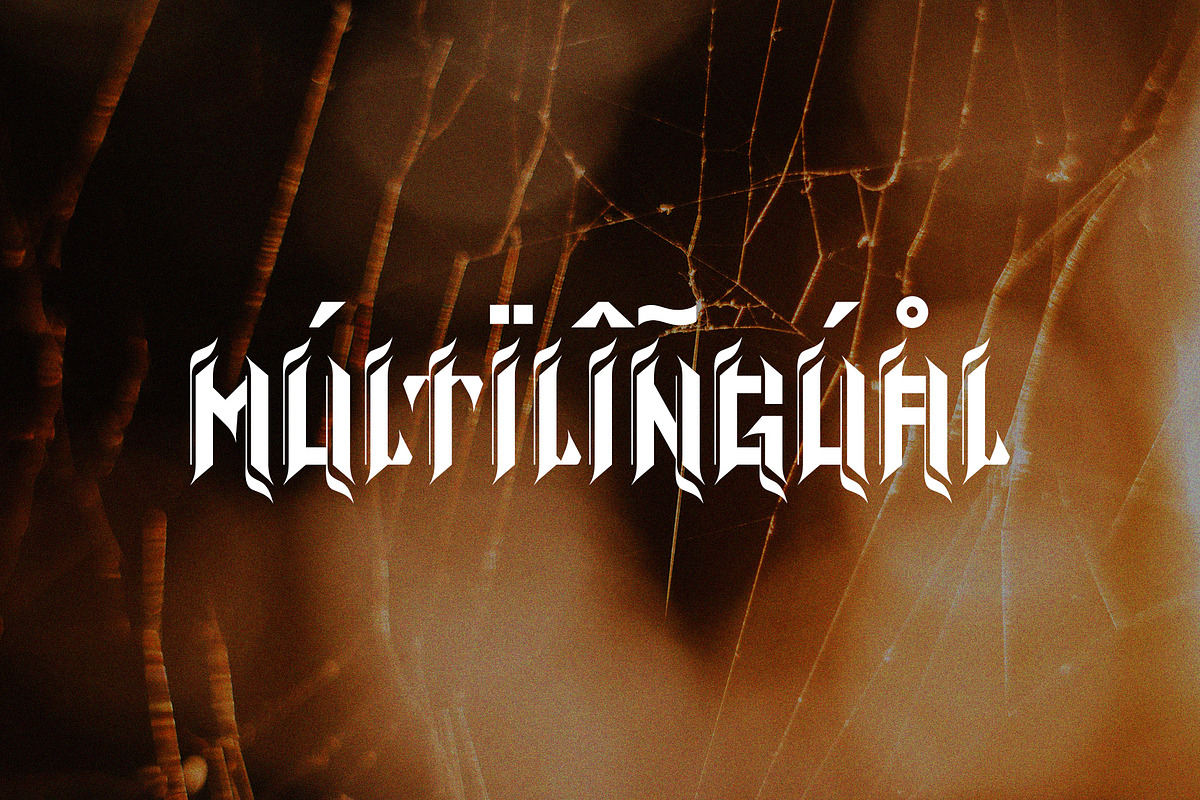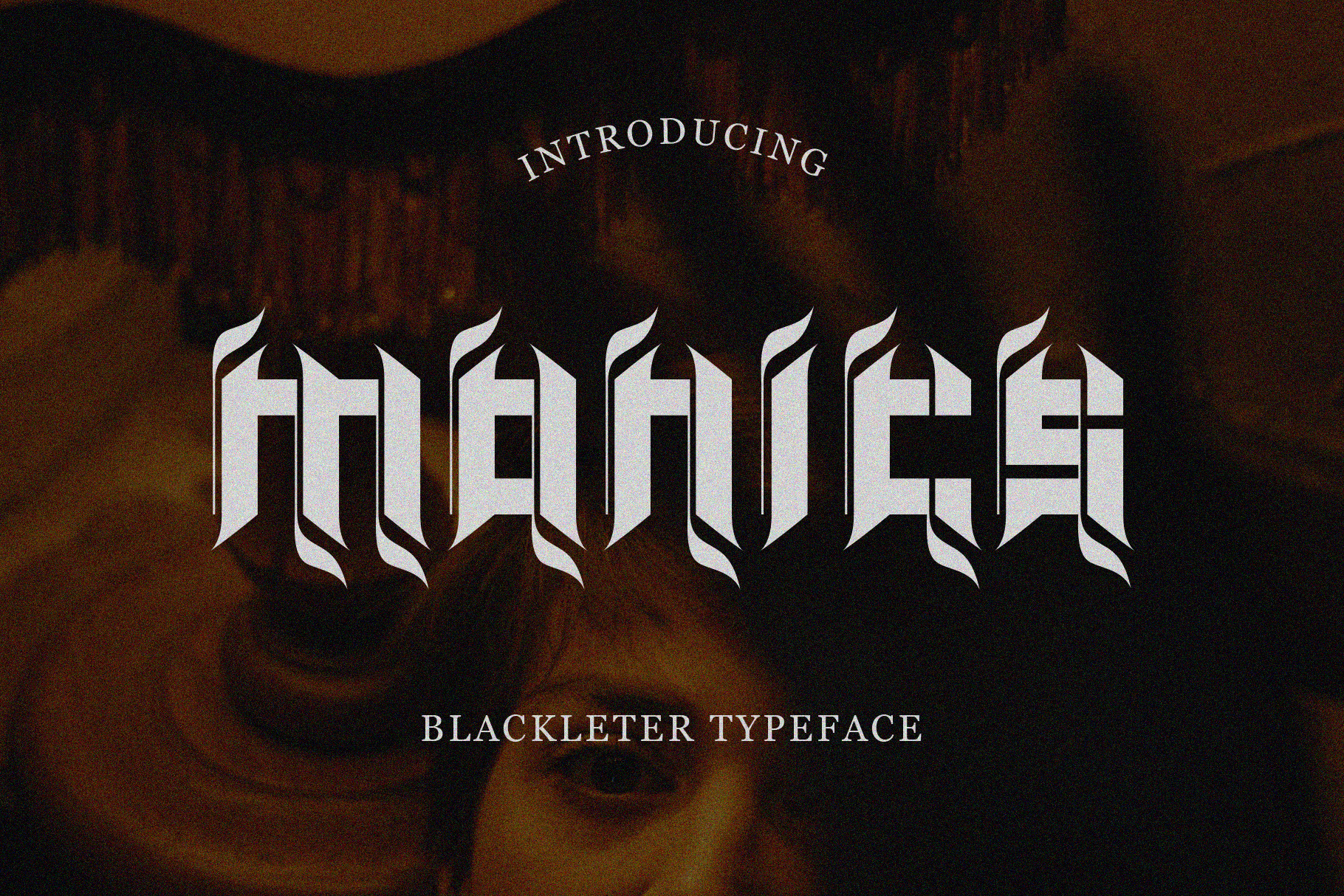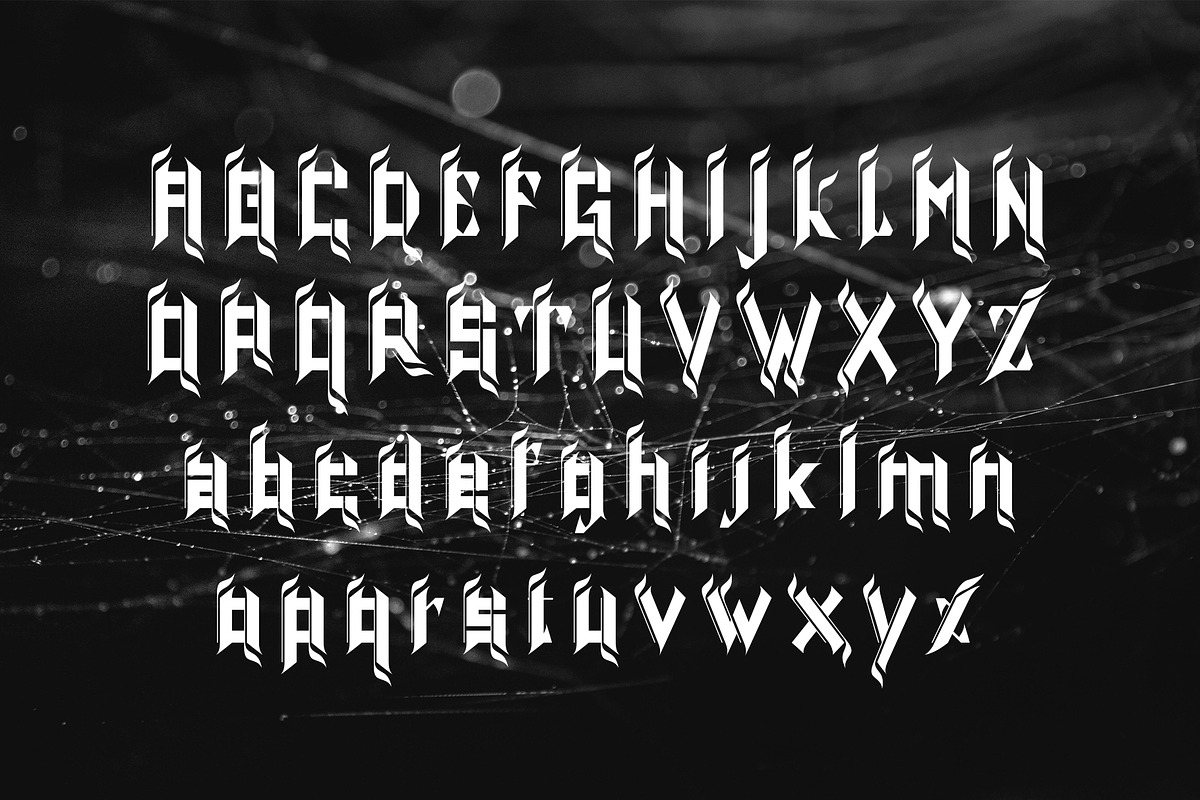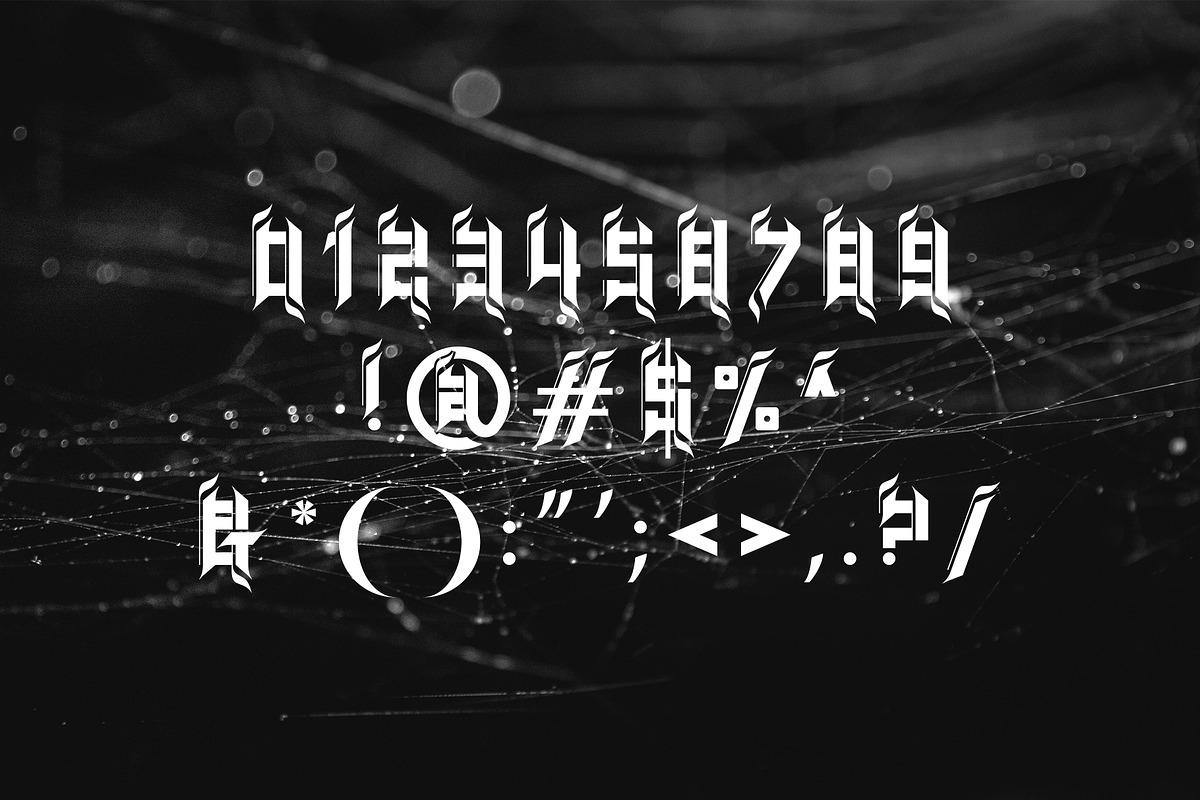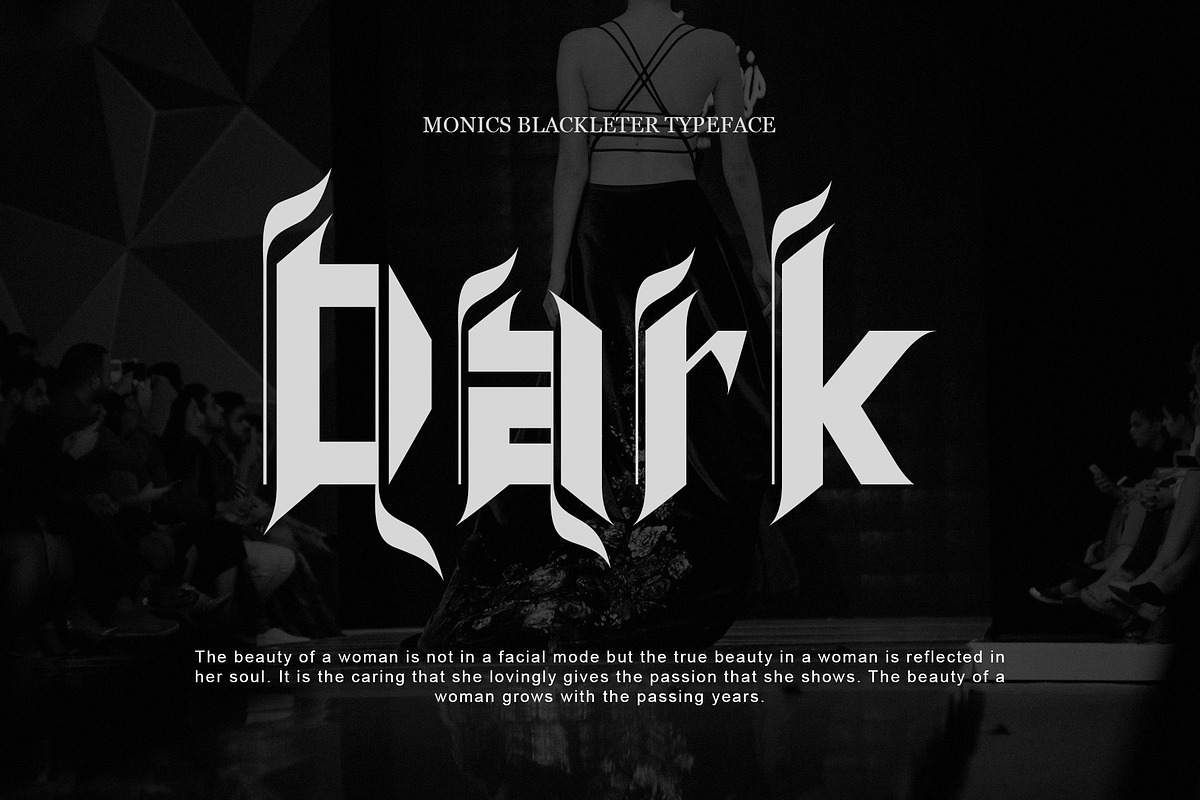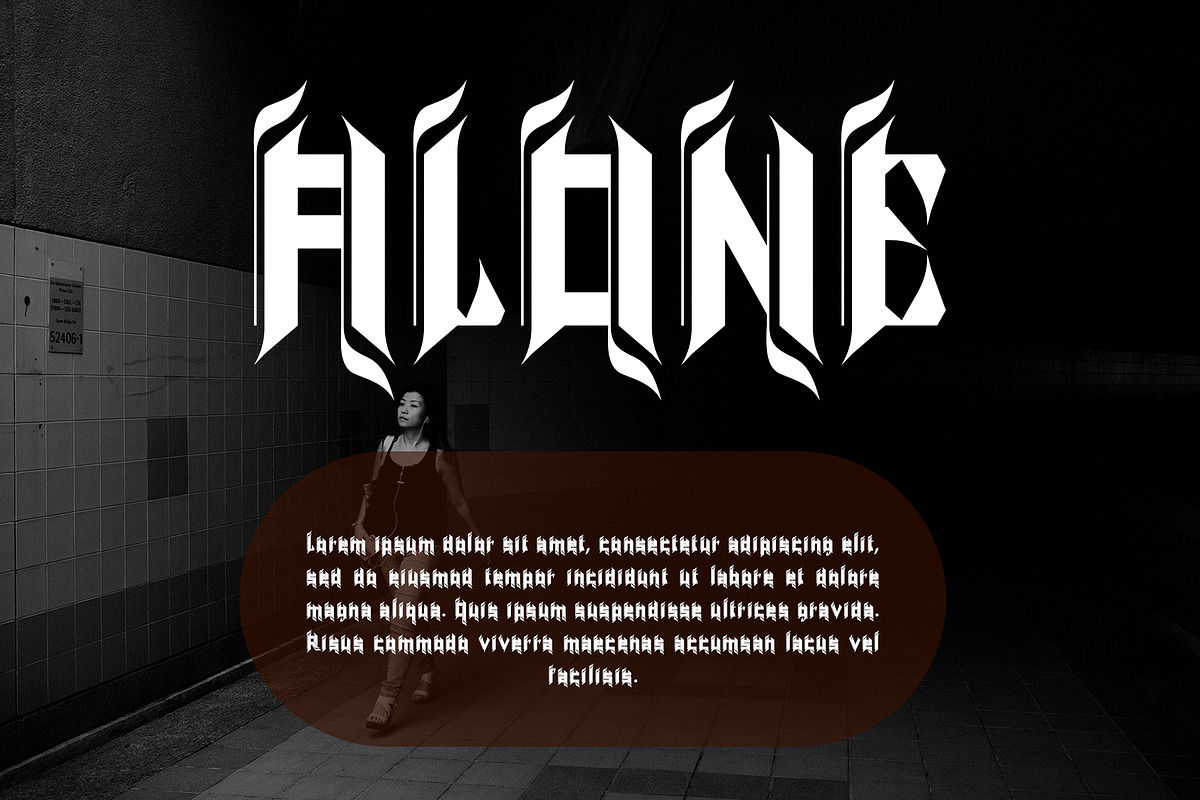
MONICCS BLACKLETER TYPEFACE
MONICS is a blackletter style calligraphy font. Do you need to design perfect labels, retro style logos, music album covers, circus posters, luxury packaging identity, etc.? If you want dark and strong medieval style concepts, please try it.